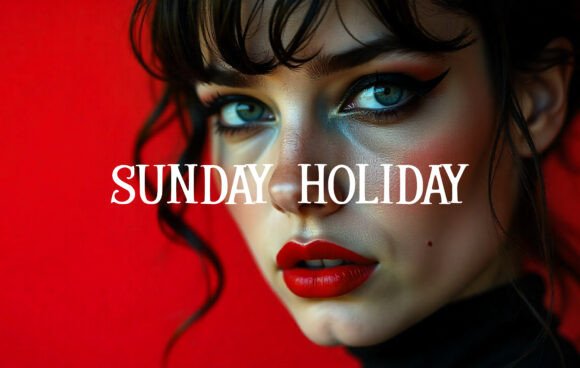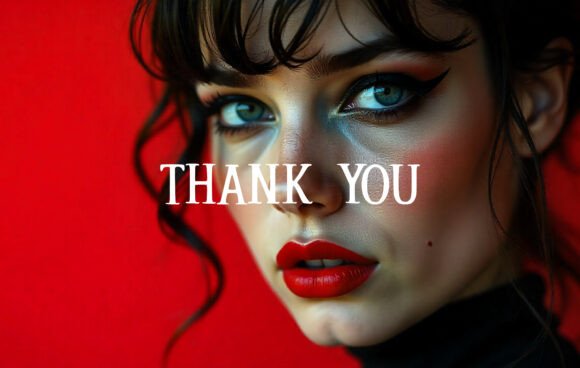
Introducing Amelthine Font: The Epitome of Elegance and Sophistication
In the realm of typography, few fonts manage to strike a balance between classic elegance and modern allure as effortlessly as Amelthine. This sophisticated and confident serif typeface has been crafted to meet the demands of high-end branding, fashion magazine layouts, editorial design, and striking headlines that command attention. With its high contrast between thick and thin strokes and sharp, refined serifs, Amelthine is the ideal choice for projects that require a sleek, luxury aesthetic.
The Characteristics of Amelthine Font
Amelthine’s design is characterized by its high contrast between thick and thin strokes, which gives it a sense of dynamism and elegance. The sharp, refined serifs add a touch of sophistication, making it perfect for designs that require a level of luxury and refinement. The font’s classic roots are evident in its serif structure, while its modern appeal lies in its sleek lines and refined features.
Perfect for High-End Branding
When it comes to high-end branding, the choice of font can make all the difference. Amelthine’s sophisticated and confident demeanor makes it an excellent choice for luxury brands looking to make a statement. Its elegant appearance and refined features evoke a sense of exclusivity and high-quality, making it perfect for brands that want to convey a sense of prestige and sophistication.
Fashion Magazine Layouts and Editorial Design
Fashion magazine layouts and editorial design require a font that is both stylish and legible. Amelthine’s sleek lines and refined features make it an excellent choice for fashion editorials, while its high contrast between thick and thin strokes ensures that it remains legible even at smaller font sizes. Whether you’re designing a fashion magazine, a lifestyle publication, or an editorial piece, Amelthine is the perfect choice.
Striking Headlines that Demand Attention
Amelthine’s bold and confident appearance makes it perfect for striking headlines that demand attention. Its sharp serifs and high contrast between thick and thin strokes ensure that it stands out, making it ideal for headlines, titles, and captions. Whether you’re designing a billboard, a magazine cover, or a website header, Amelthine is sure to make a statement.
Key Features of Amelthine Font
- High contrast between thick and thin strokes: Gives Amelthine a sense of dynamism and elegance.
- Sharp, refined serifs: Add a touch of sophistication and refinement.
- Classic roots with a modern appeal: Makes Amelthine perfect for designs that require a level of luxury and refinement.
- Sophisticated and confident demeanor: Makes Amelthine an excellent choice for high-end branding and luxury designs.
Why Choose Amelthine Font?
Amelthine’s unique combination of classic elegance and modern allure makes it an excellent choice for designers and crafters looking for a sophisticated and confident serif typeface. Its high contrast between thick and thin strokes, sharp serifs, and refined features make it perfect for high-end branding, fashion magazine layouts, editorial design, and striking headlines. Whether you’re a designer, a crafter, or a DIY enthusiast, Amelthine is the ideal choice for projects that require a sleek, luxury aesthetic.
In conclusion, Amelthine font is a sophisticated and confident serif typeface that strikes the perfect balance between classic elegance and modern allure. Its high contrast between thick and thin strokes, sharp serifs, and refined features make it perfect for high-end branding, fashion magazine layouts, editorial design, and striking headlines. With Amelthine, you can add a touch of luxury and sophistication to your designs, making it an excellent choice for designers and crafters looking for a sleek, luxury aesthetic.